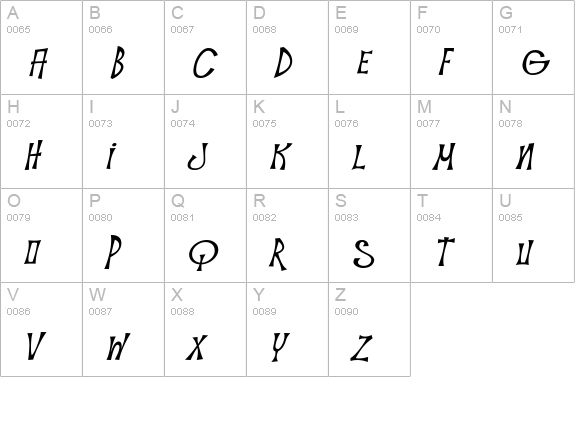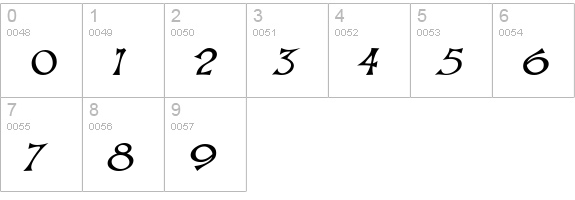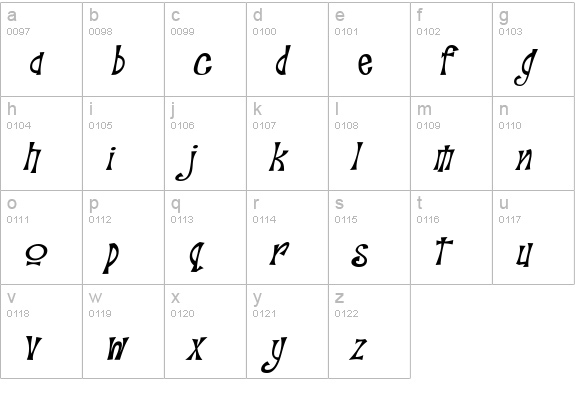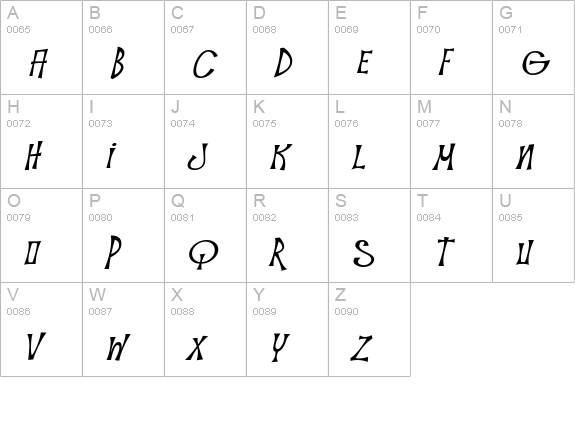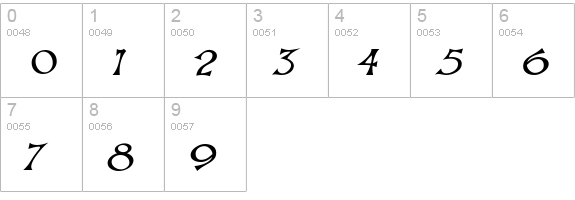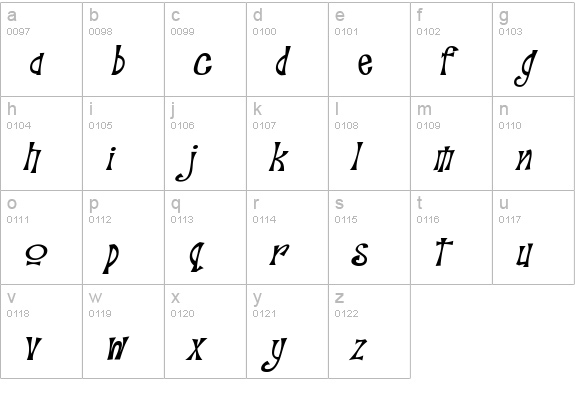
Troutkings BTN Oblique Font Details
Troutkings BTN Oblique is a distinctive, italic variant in the Troutkings typeface family \xE2\x80\x94 well suited to design and typography projects.
Troutkings BTN Oblique font is a stunning display font that exudes a sense of elegance and sophistication. With its sleek italicized style, this font is perfect for adding a touch of class to any design project. The unique letterforms of Troutkings BTN Oblique font are characterized by their smooth curves and subtle slant, creating a sense of movement and dynamism. Whether used for headlines, logos, or other graphic elements, this font is sure to make a bold statement. One of the most remarkable aspects of Troutkings BTN Oblique font is that it is available for free. Yes, that's right - you can freely download this font at FontsMarket.com. This means that you can easily add this stunning font to your design toolkit without any cost. The versatility of Troutkings BTN Oblique font makes it suitable for a wide range of design projects. From elegant invitations to eye-catching posters, this font adds a touch of sophistication and professionalism to any piece of work. So, why wait? Download Troutkings BTN Oblique font for free at FontsMarket.com and elevate your designs to a whole new level. Embrace the beauty of this font and let it captivate your audience with its timeless charm.